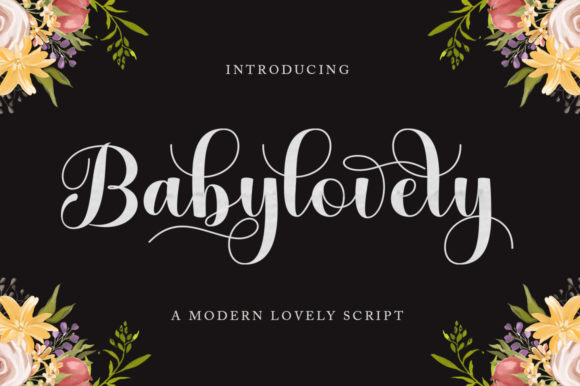
Refining Your Visual Voice with Baby Lovely Script
There is a distinct moment in a design project where a standard sans serif or a rigid serif font just fails to capture the warmth you are aiming for. You need something that breathes, something that mimics the intimacy of a handwritten note but retains the crispness of professional design assets. Enter Baby Lovely Script. This is not just another addition to your font library; it is a delicate script font that bridges the gap between casual charm and high-end elegance. It is designed specifically for creators who need their typography to speak with a soft, refreshing, and sophisticated voice.
When you first load Baby Lovely Script, you will notice its fluidity. It avoids the overly jagged edges that make some handwritten fonts difficult to read, opting instead for smooth, flowing connections between characters. This gives the typeface a personality that is both approachable and polished. It works beautifully in modern typography contexts where the goal is to evoke emotion without sacrificing legibility. Whether you are working on logo design for a boutique brand or crafting social media graphics that need to stop a user from scrolling, this font provides the visual anchor you need.
Strategic Applications for Designers and Entrepreneurs
Understanding where a script font fits into your workflow is half the battle. Baby Lovely Script is versatile, but it shines brightest when used as a display font. It is not intended for long blocks of body text, but rather for headlines, subheadings, and accent text that draws the eye. In the realm of packaging design, for instance, this font can elevate a product from generic to artisanal. Imagine a candle label or a cosmetic box where the product name is rendered in this lovely script—it immediately communicates care and quality to the consumer.
For web design, use it sparingly to create visual hierarchy. A landing page for a wedding planner or a high-end lifestyle coach benefits immensely from the elegance of Baby Lovely Script. It sets a mood that sans serif fonts often struggle to achieve on their own. Furthermore, in editorial design, such as magazine headers or blog post titles, it adds a layer of sophistication that signals to the reader that the content inside is curated and valuable. It is a commercial font that earns its place by doing the heavy lifting for your brand identity.
Here are a few specific scenarios where this typeface excels:
- Stationery and Invitations: Wedding suites, baby shower invites, and thank you cards.
- Digital Content: Instagram stories, Pinterest pins, and YouTube thumbnails where a personal touch is required.
- Brand Collateral: Business cards for creative professionals, pricing menus for salons, and signage for boutique shops.
Maximizing Impact with PUA Encoding and Font Pairing
One of the most practical features of Baby Lovely Script is that it is PUA encoded. If you are not familiar with the technical side of fonts, this is a significant advantage. PUA (Private Use Areas) encoding means that all the extra glyphs, swashes, and stylistic alternates are accessible regardless of the software you are using. You do not need to be an expert in Adobe Illustrator to access the fancy tails or the alternative letterforms. This makes it incredibly user-friendly for hobbyists, small business owners, and content creators who might be using simpler design platforms like Canva or basic word processors.
However, a script font rarely works in isolation. The key to professional-looking design is font pairing. Because Baby Lovely Script has a lot of personality, it requires a grounding partner. Pairing it with a clean, geometric sans serif font creates a beautiful contrast that is easy on the eyes. The sans serif handles the information-heavy details, while the script provides the emotional hook. Alternatively, pairing it with a classic serif font can create a vintage or timeless aesthetic, depending on the specific serif you choose.
When evaluating the fit for your project, consider the following workflow:
- Check Readability: Test the font at the size you intend to use it. Script fonts can lose legibility at very small sizes, so ensure your headlines are large enough to showcase the delicate strokes.
- Test the Tone: Does the font match the voice of your copy? If you are writing a serious legal disclaimer, a script font is inappropriate. If you are writing a heartfelt note to customers, it is perfect.
Building Brand Recognition Through Typography
Consistency is the cornerstone of brand recognition. When you choose a typeface like Baby Lovely Script as part of your core identity, you are making a commitment to a specific visual language. Over time, your audience will begin to associate that style of lettering with your brand. This is the power of a strong brand identity. It moves beyond just a logo; it encompasses the feeling of every piece of communication you put out into the world.
For marketers and entrepreneurs, this font offers a way to humanize digital interactions. In an era of automated emails and AI-generated content, adding a human touch through typography can foster a deeper connection with your audience. It suggests that there is a real person behind the brand who cares about aesthetics and details. Use Baby Lovely Script on your "Thank You" pages, in your email headers, or on the cover of your digital lead magnets. These small touches contribute to a cohesive user experience that feels intentional and professional.
Ultimately, Baby Lovely Script is more than just a pretty typeface; it is a tool for communication. It allows you to convey warmth, elegance, and personality without saying a word. By integrating this script font into your design assets thoughtfully, you can elevate your projects from ordinary to memorable, ensuring that your visual voice is as lovely as the message you are trying to share.